Black Range Font
Black Range is a bold and powerful display font, featuring an urban style. Add it to your most creative ideas and notice how it makes them come alive!
XXII Aven Font Family
XXII Aven is a contemporary sans serif font family in 5 weights from Light to Black. It's a modified version of Maven Pro originally released by Joe Prince, 2011. The typeface based on the original design with some tiny adjustments to create an improved version of this font family.
Destoria Font
Destoria is a lovely and relaxed handwritten font. It is PUA encoded which means you can access all of the glyphs and swashes with ease! it has a gentle and beautiful flow, and as a result it will elevate each of the designs you wish to create!
Wonder Night Font
Wonder Night is a lovely font that will immediately take you into a fairytale land. Magic and a bit spooky, this serif font will be the ideal choice for any Halloween or October party design you wish to develop.
Forte Font
Forte is a bold and casual serif font. It is great for posters, logos, packaging, invitations, website titles, T-Shirts and more.
Winter Sweety Font
Winter Sweety is a quirky and playful handwritten font. It is ideal for holiday-themed greeting cards and for any crafting project that requires a joyful touch.
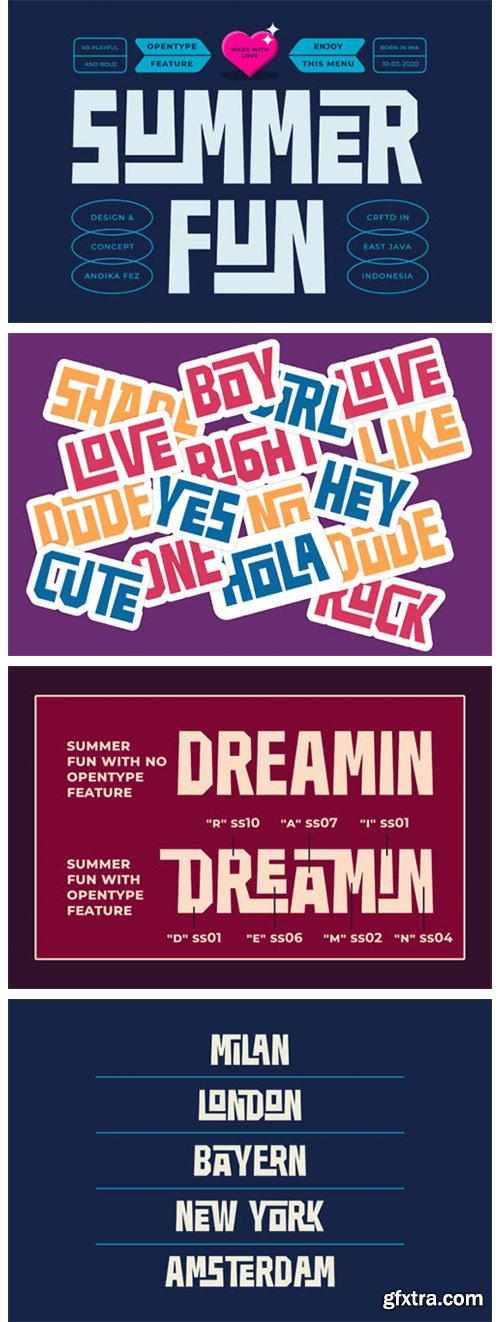
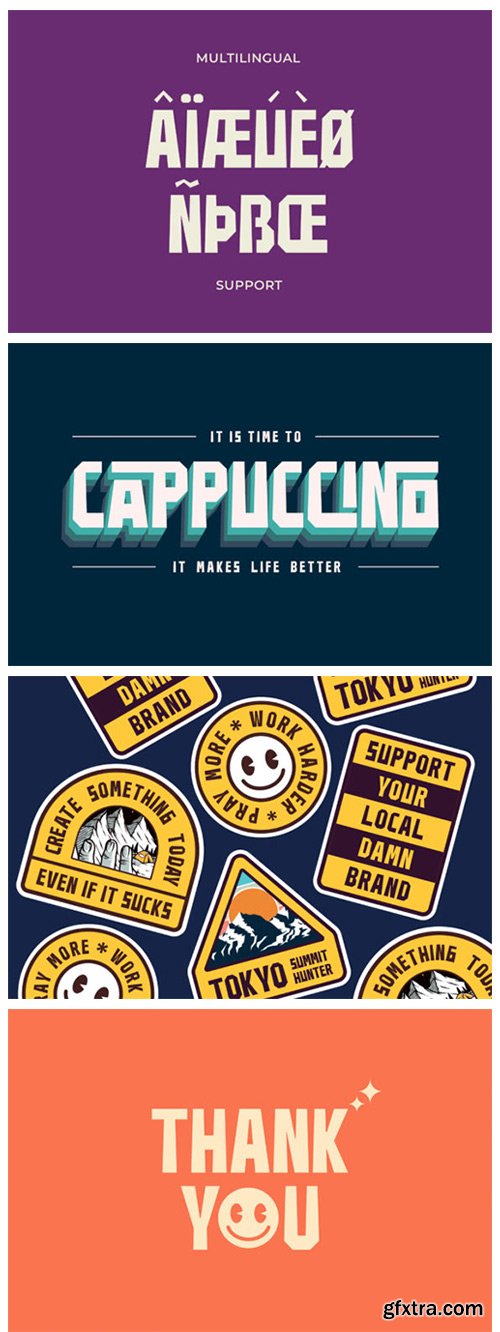
Summer Fun Font
Summer Fun is a bold and chunky lettered display font. Its distinct and powerful letters make this font a masterpiece.
Harmony Font
Harmony is a beautiful and relaxed handwritten font with a modern and elegant feel. It can be used for logos, branding, invitations, cards, wedding card, social media posts, and so much more.
CM - The Majestic 5414656
This pair was inspired by the Vintage label design that i saw on some coffee shop, It was crafted by hand specially to add natural handmade feeling in its brand identity than i make it clean with pentool. Opentype features The Majestic font has 178 character set included The Majestic is very good looking in logo, labels, t-shirt prints, product packaging, invitations, advertising and others.
Silent Caroline Font
Silent Caroline is a thin and elegant handwritten font. Use it to make your ideas even more realistic and create spectacular designs!
CM - Calinda 5095223
Calinda font is a sans serif typeface, condensed, and characterised by widening strokes. Calinda has 630 glyphs with a full set of OpenType features, stylistics alternates, stylistics sets, swashes, ligatures and a set of ornaments well designed to combine with the glyphs.
Goldie Blanket Font
Goldie Blanket is a delicate and elegant handwritten font. Its distinct and well rounded letters make this font a masterpiece. Fall in love with its incredibly versatile style and use it to create spectacular designs! This font is PUA encoded which means you can access all of the glyphs and swashes with ease!
MX Font
MX is a bold and modern display font. Use it to make your ideas even more realistic and create spectacular designs!
Lovely Christmas Font
Lovely Christmas is a cute and quirky display font. It will add an incredibly joyful touch to your designs. Add this beautiful display font to each of your creative ideas and notice how it makes them stand out!
Fosfor Font
Fosfor is a fresh and unique display font. It is suitable for various needs such as covers, magazines, t-shirts, posters, billboards, t-shirts, and so much more!
Magic Clause is perfect for product packaging, branding project, megazine, social media, wedding, or just used to express words above the background.
Daisy Girl is a flowing handwritten font, described by an elegant touch, perfect for your favorite projects. Fall in love with its incredibly distinct and timeless style and use it to create spectacular designs!
Proudly Present, BLINKY SEASON Font.
BLINKY SEASON is a Monoline Font.
BLINKY SEASON is perfect for product packaging, branding project, megazine, social media, wedding, or just used to express words above the background.
Introducing by Balpirick Studio.
Proudly Present, GOLD STICK Font.
GOLDSTICK is a Fun Monoline Handdrawn Font.
Vintage King Font
Vintage King is a retro and bold display font. This font is PUA encoded which means you can access all of the glyphs and swashes with ease! It would look great on headlines, magazines, logos, branding and so much more!
Holyriver Font
Holyriver is a vintage styled serif font. Bold and powerful, this font will make any design idea stand out!
Bellarina Font
Bellarina is a monoline signature font. Use it to create elegant signatures for your personal or business name cards. It will also look amazing in branding projects, social media posts, magazines, book covers and more!
Highly Font
Highly is a cool and simple sans serif font. It can easily be matched to an incredibly large set of projects, so add it to your creative ideas and notice how it makes them stand out!